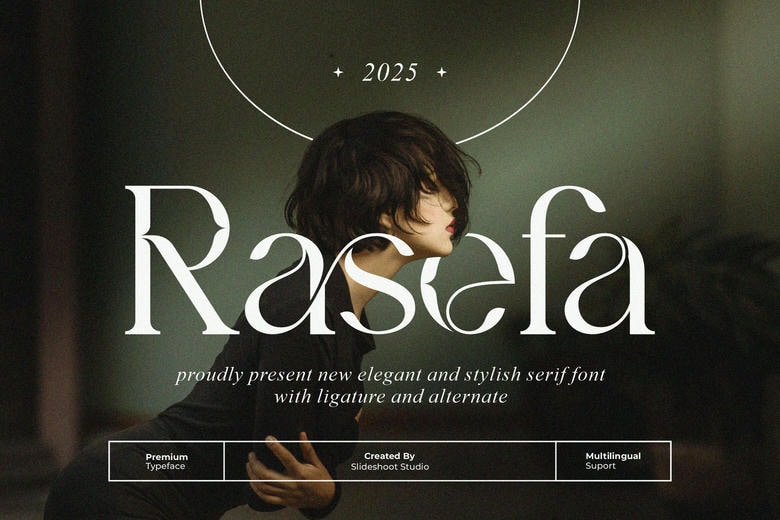
Rasefa Font
Rasefa Serif is an old and elegant font type, it is suitable for crafting branding and logo designs. The cute and classic style looks very elegant in this classic Serif font. This font will go well for invitation card designs, cool logos, movie titles, movie names, business cards, book titles, brand names, and other such designs.
Rasefa Serif typeface is sleek and seriffed, which adds elegance and the now to the writing piece. These changes and interconnections make this font suitable for any work to be processed using it.
Rasefa Serif Font